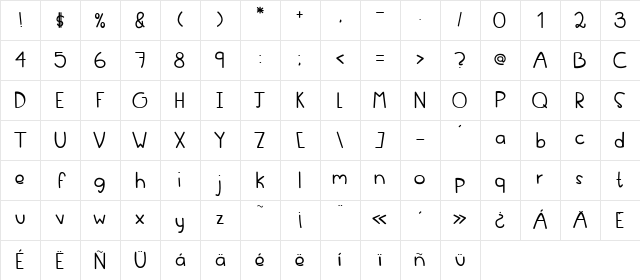
evfont Regular
Complete evfont Regular glyph index. Displaying only characters natively supported by evfont Regular font.
Design Context for evfont
evfont is a composed and adaptable typeface that performs quietly and consistently across a wide range of design contexts.